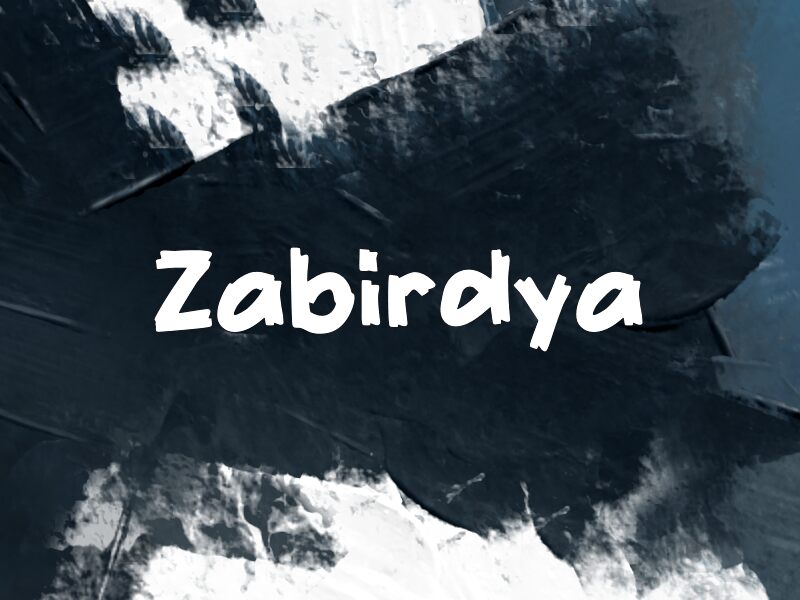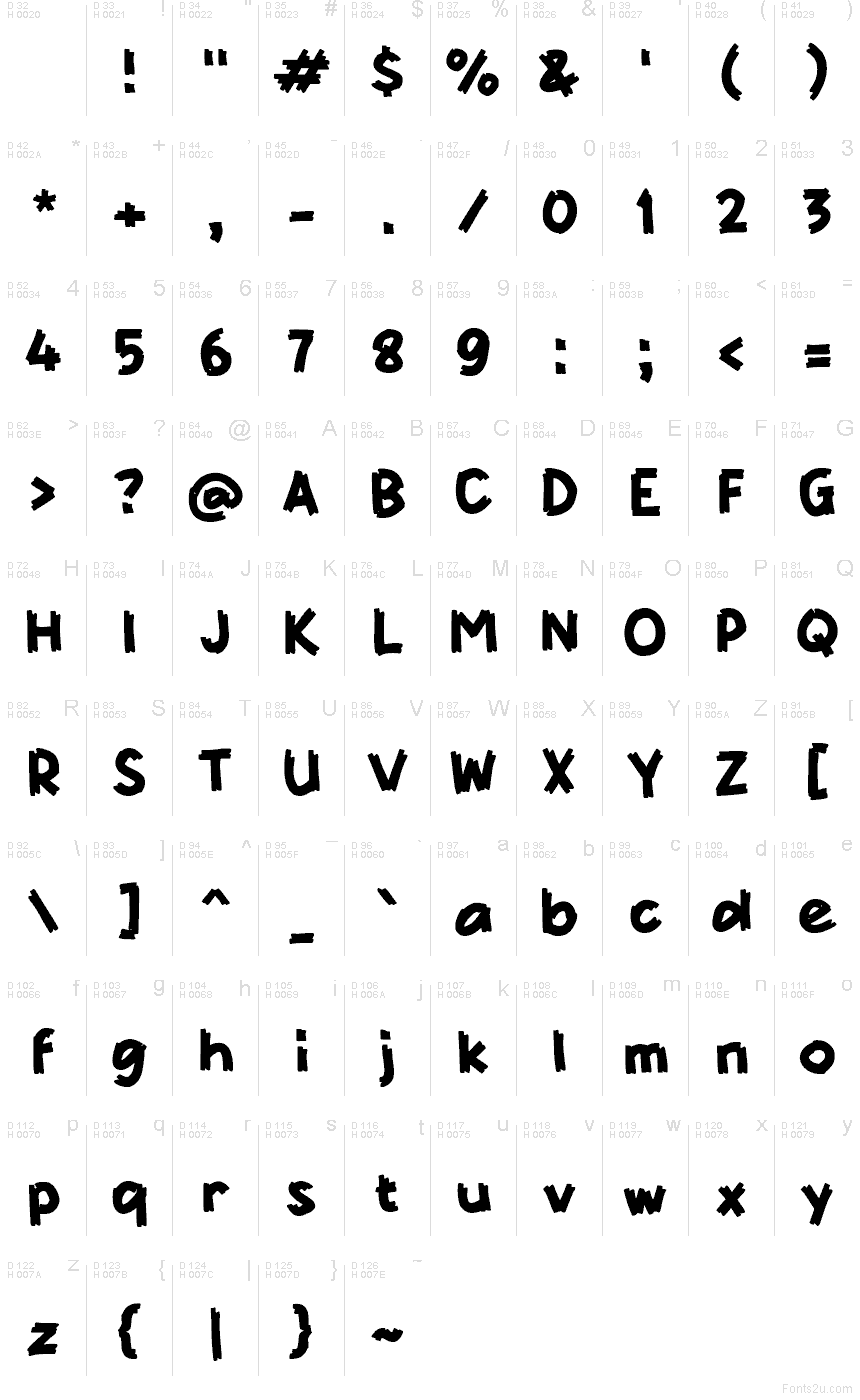
Zabirdya
Zabirdya by Wep is a free rough brush font with a blunt, hand-painted voice. The letters look loaded with ink and pushed across the page in fast strokes, with chunky curves, uneven edges, and a slightly scruffy bounce that keeps the texture lively rather than neat.
It fits posters, music artwork, streetwear graphics, zines, packaging, and short social headers where a raw painted feel does the work. As a free font, Zabirdya is best used in brief words, cover lines, and title cards, because the heavy brush texture and casual rhythm give even a simple phrase a direct, homemade shove.